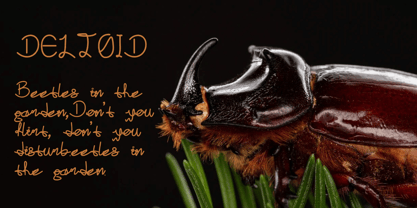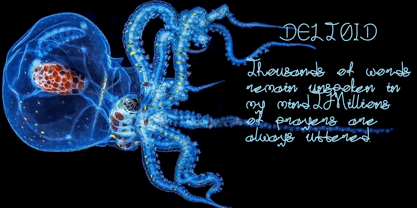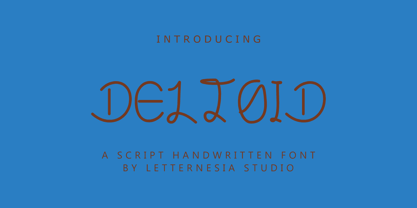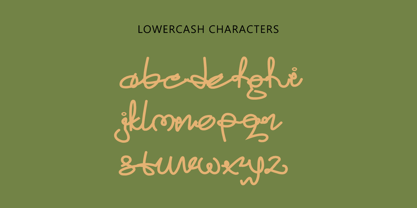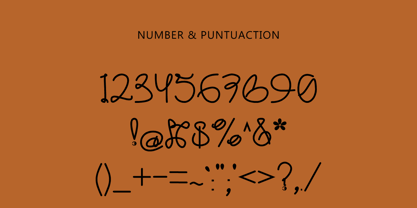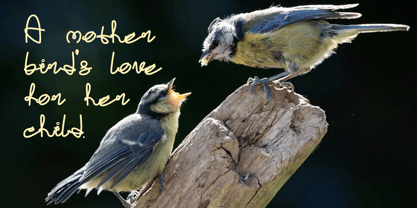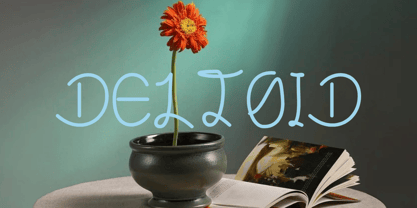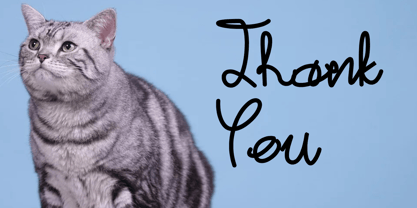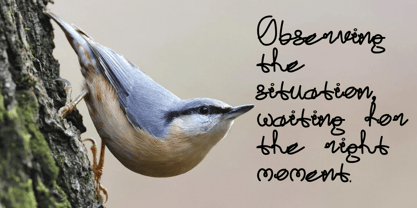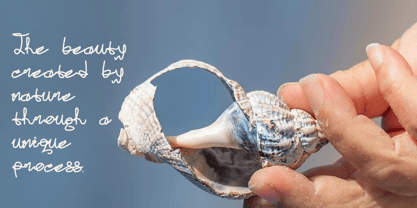
Detloid
by Letternesia studio
The Detloid Font Family was designed by Ta Siyo and published by Letternesia studio. Detloid contains 1 styles.
Detloid is a futuristic font with a strong and bold geometric style. Combining modern elements with a digital vibe, this font features thick lines, sharp angles, and shapes inspired by technology and futuristic design. Each letter is crafted to evoke a sense of sophistication and innovation, making it perfect for various design needs such as:
Technology posters
Video game titles
Innovative startup branding
Electronic product designs
The Detloid font exudes a progressive futuristic feel, ideal for creating a bold and modern aesthetic.
Designers: Ta Siyo
Publisher: Letternesia studio
Foundry: Letternesia studio
Design Owner: Letternesia studio